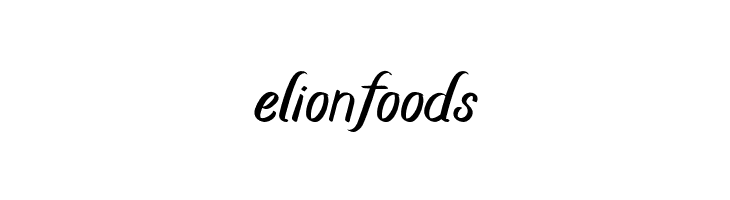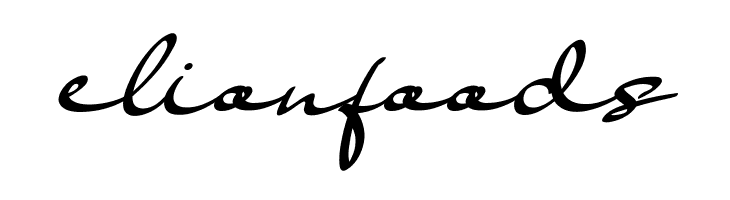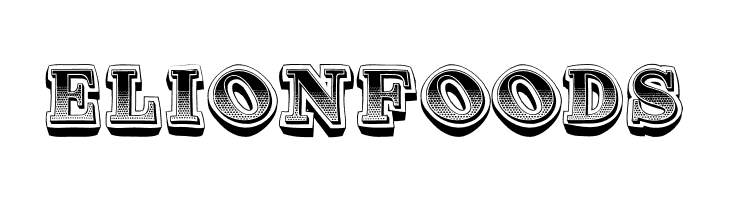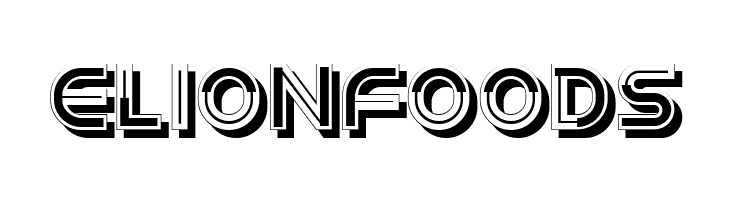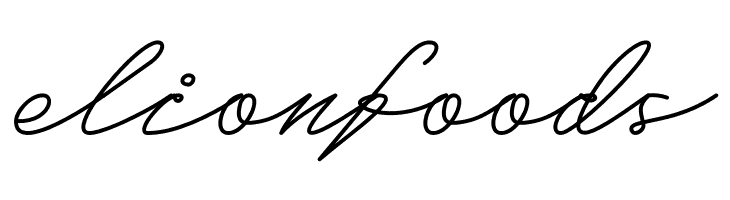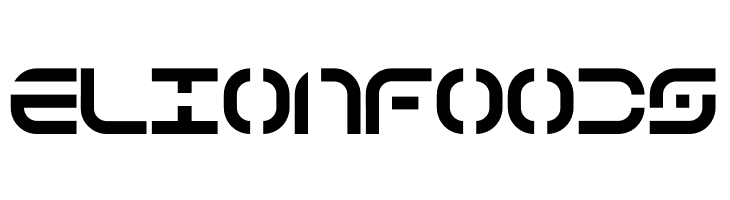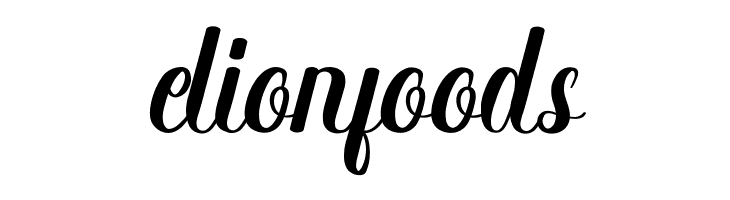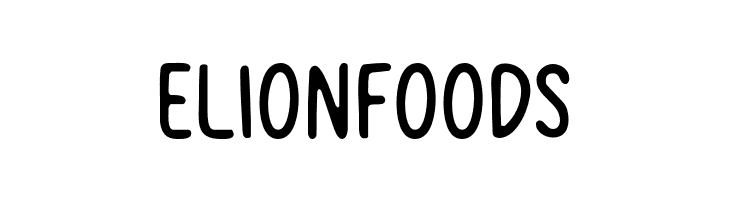
An elegant and flowing script font with a sophisticated, calligraphic style.
A fluid and elegant script font with a handwritten appearance.
A refined, cursive script font with elegant, flowing lines.
A modern, handwritten font with a casual and flowing style.
A bold, geometric font with a three-dimensional, futuristic design.
A playful, rounded font with smooth lines and a friendly appearance.
A bold, futuristic font with geometric and stencil-like elements.
A lively, handwritten font with tall, narrow letterforms and playful strokes.
A bold, decorative font with a vintage 3D shadow effect.